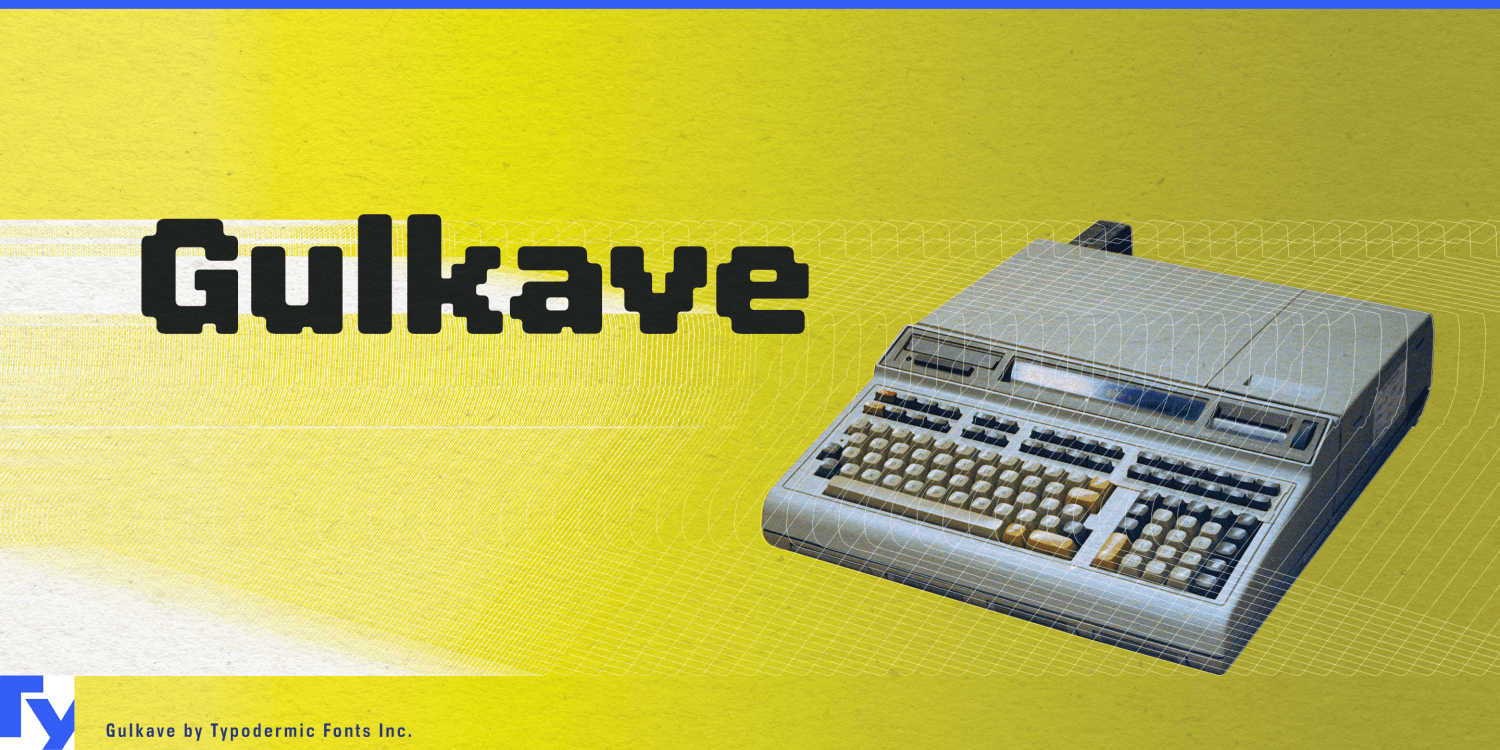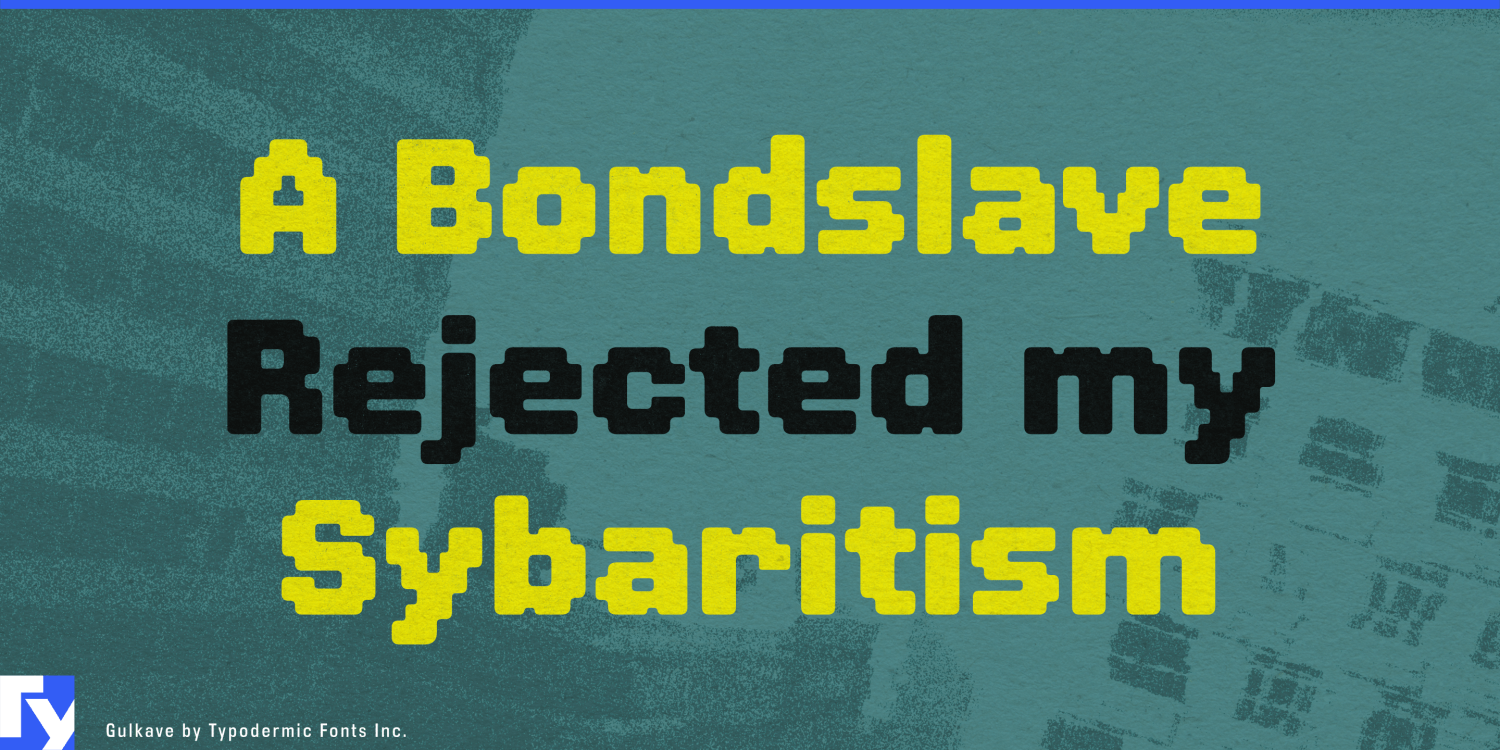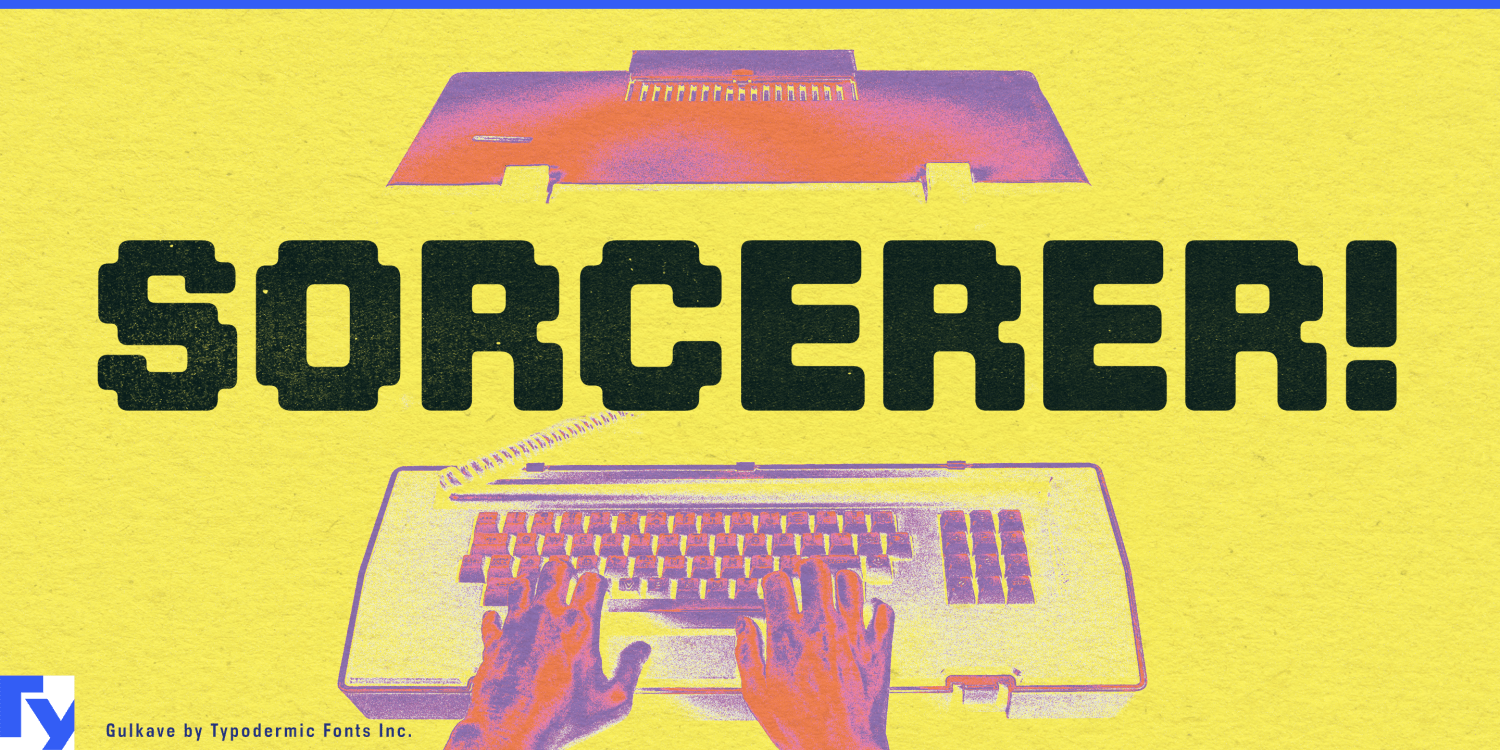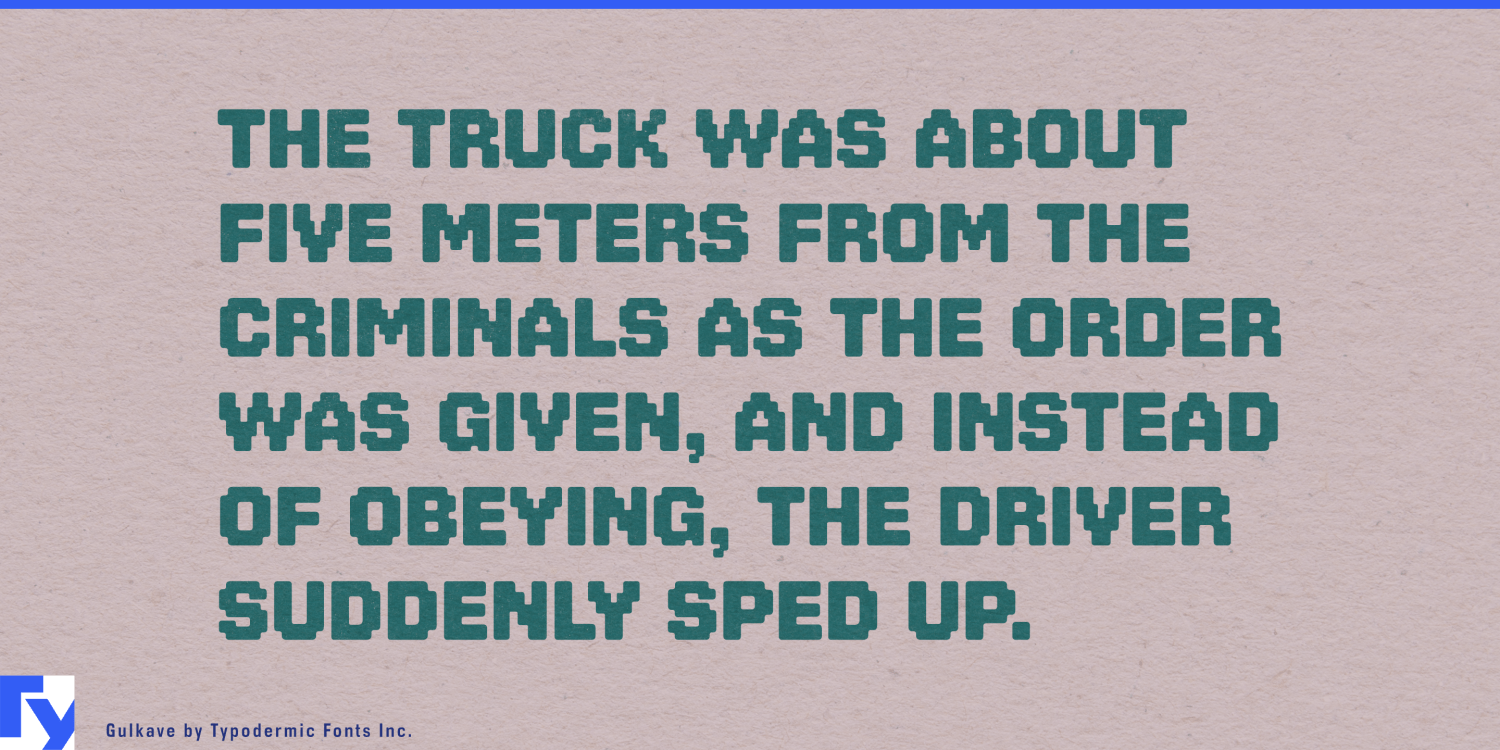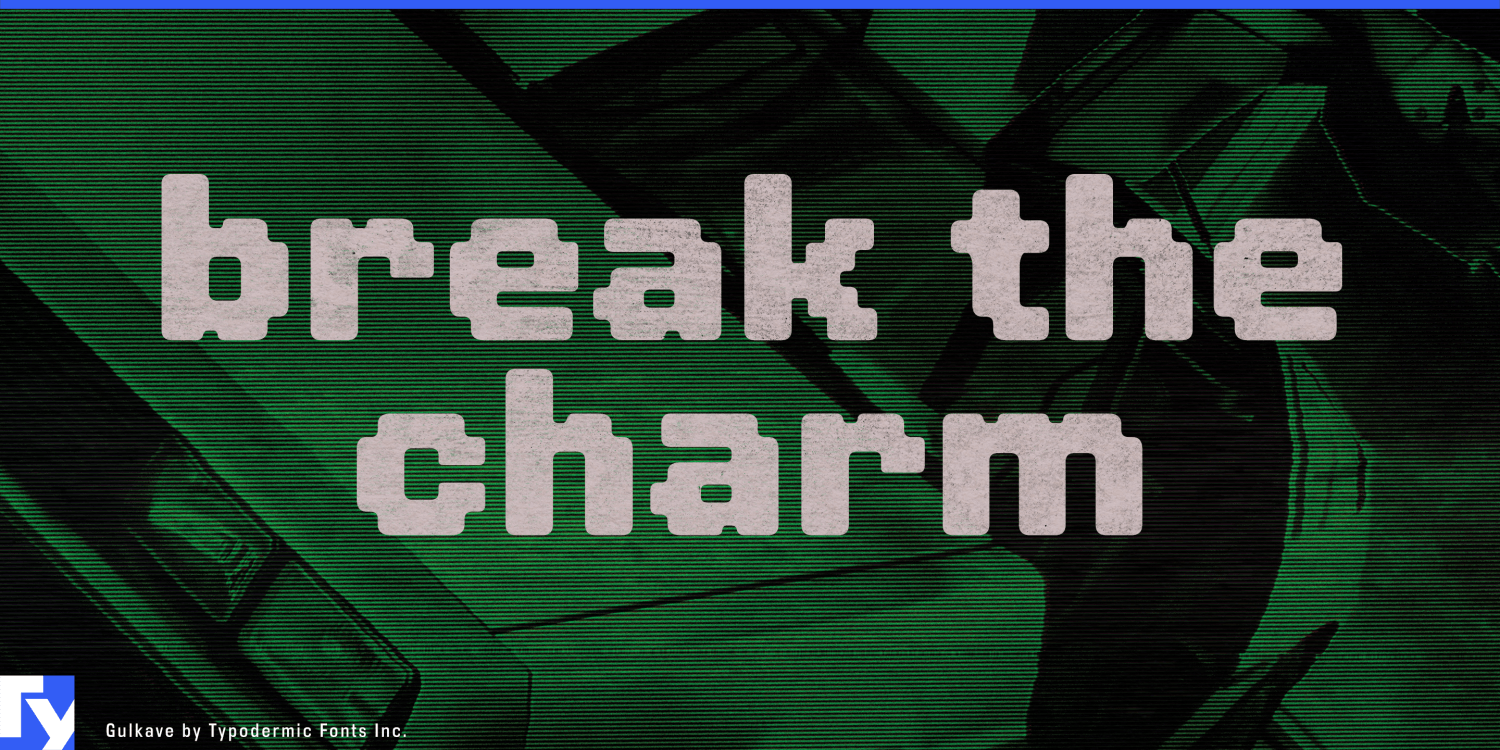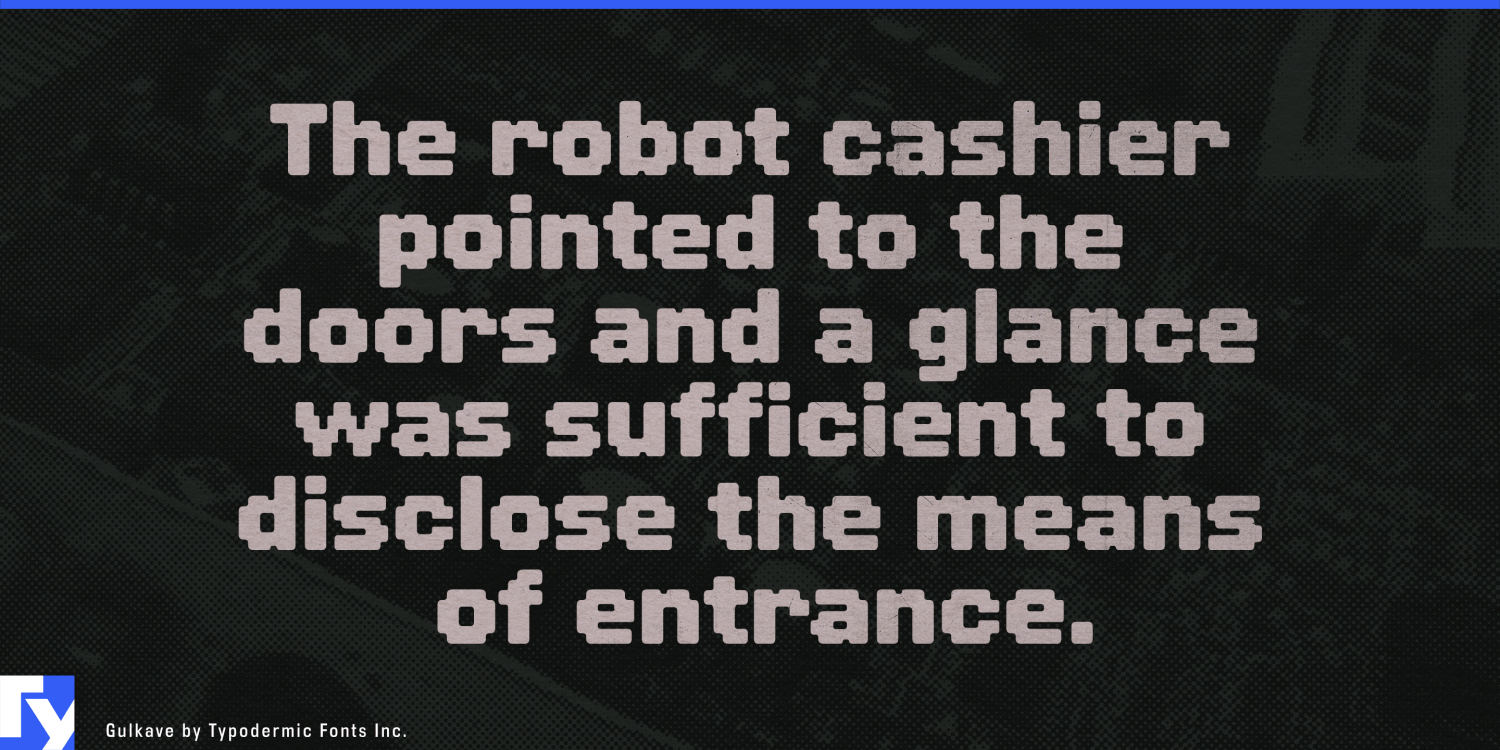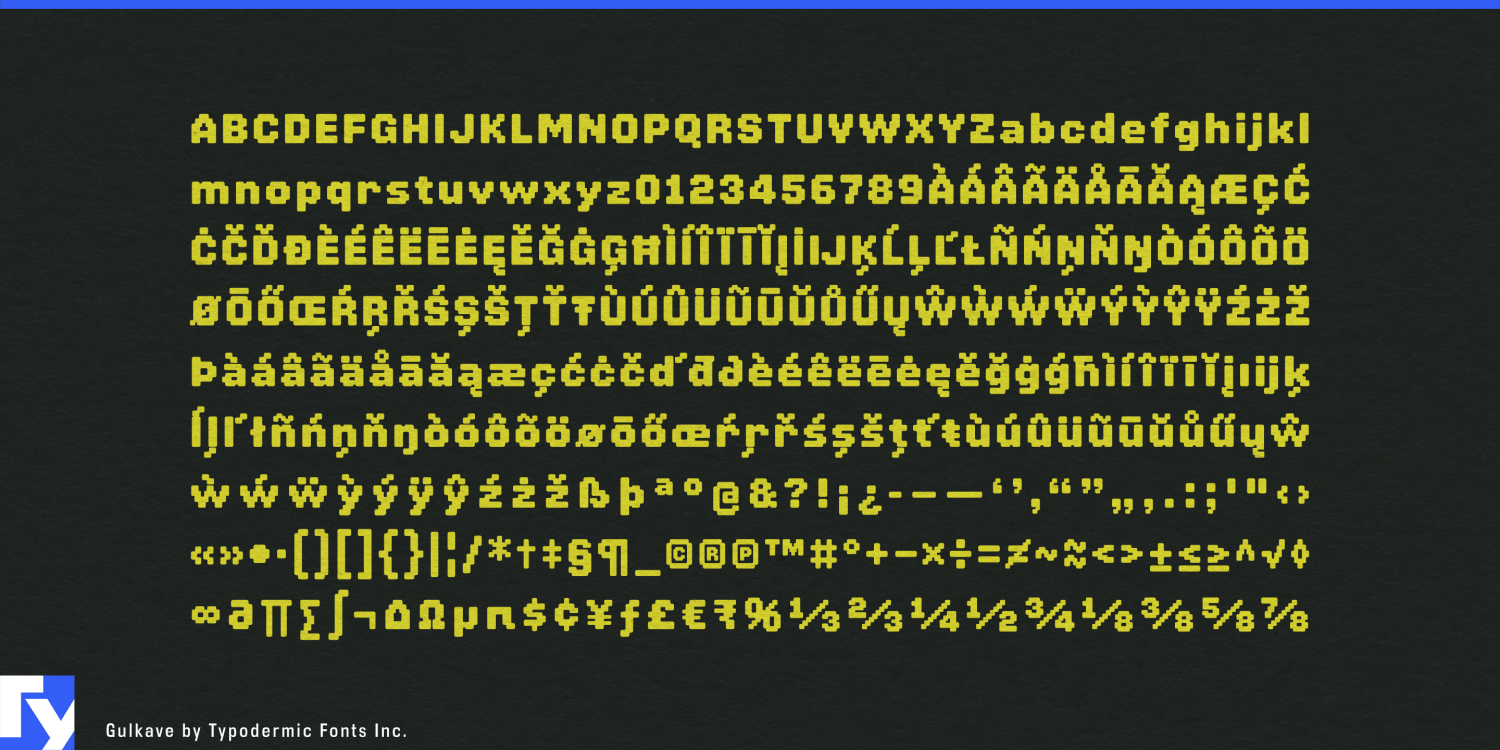
Gulkave
Pixel lettering works naturally on a screen; move the same geometry into the physical world and stair-stepped diagonals, tiny projections and narrow joins can become awkward. Gulkave keeps the low-resolution impression while replacing those fragile transitions with broader, rounded forms that make more sense when letters become objects.
It looks as though it belongs to a rigid pixel grid, but it is not truly constrained by one. Flexible proportions, softened corners and substantial joins preserve the technical character without carrying every artifact of bitmap construction into larger sizes.
That makes Gulkave particularly useful for physical signage. Vinyl-cut storefront graphics, CNC-cut metal letters, routed panels, thick Plexiglas signs and dimensional lettering can retain a digital flavour without looking like enlarged screen pixels. Vehicle graphics offer a similar advantage: police cars, utility trucks, transit-maintenance fleets, airport service vehicles and technical-response vehicles can use Gulkave for department names, unit markings and large fleet graphics, with a quieter companion face handling small operational information.
Workshop signs, equipment-room headings, warehouse identifiers and fabrication-shop graphics give the same pseudo-pixel forms an industrial setting. Computer museums, retro-computing exhibitions, electronics workshops and pixel-art games can still make use of the digital connection when the subject calls for it.
Gulkave’s trick is easy to miss because the illusion works so well. It looks like pixel typography that escaped the screen; its rounded corners, sturdy joins and freer proportions make it especially comfortable in cut vinyl, acrylic, metal, vehicles and fabricated signs.